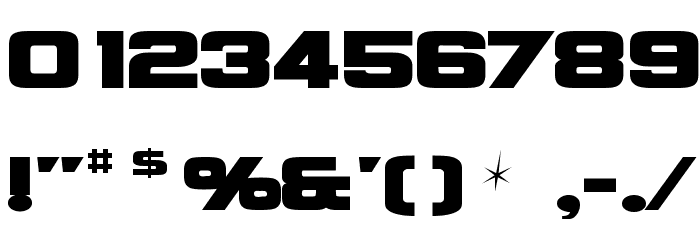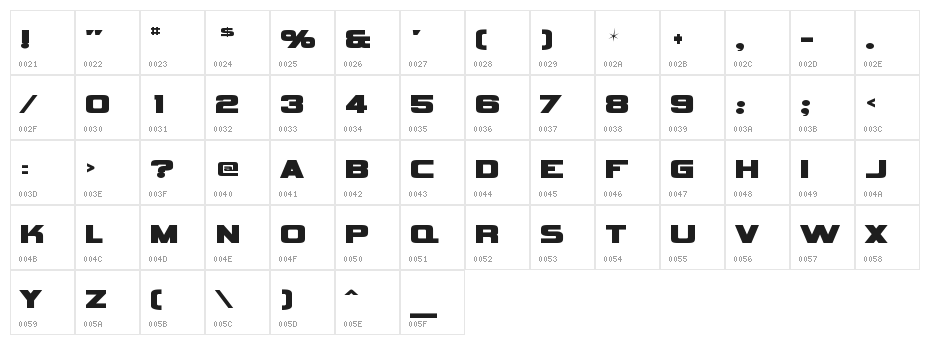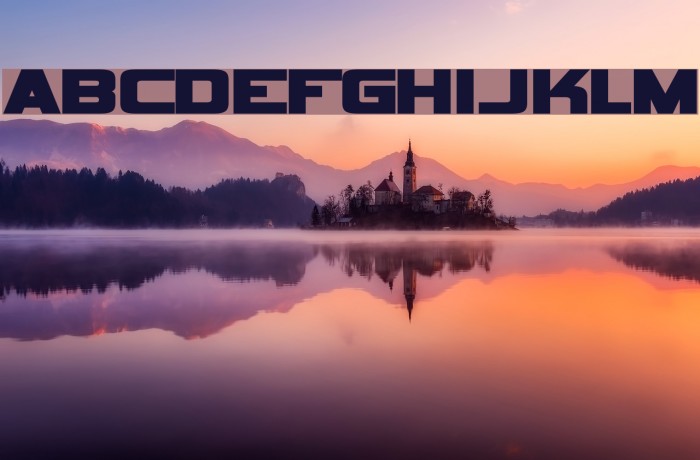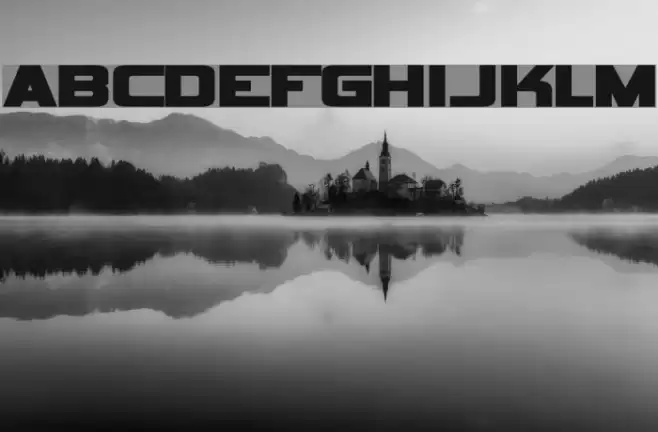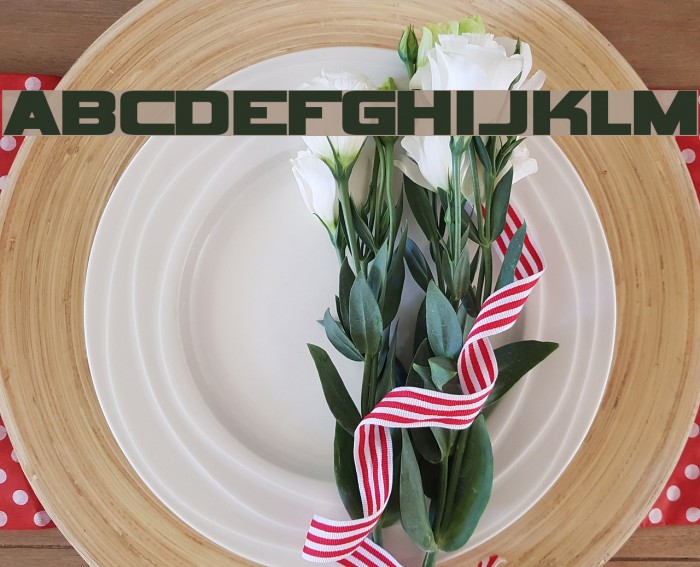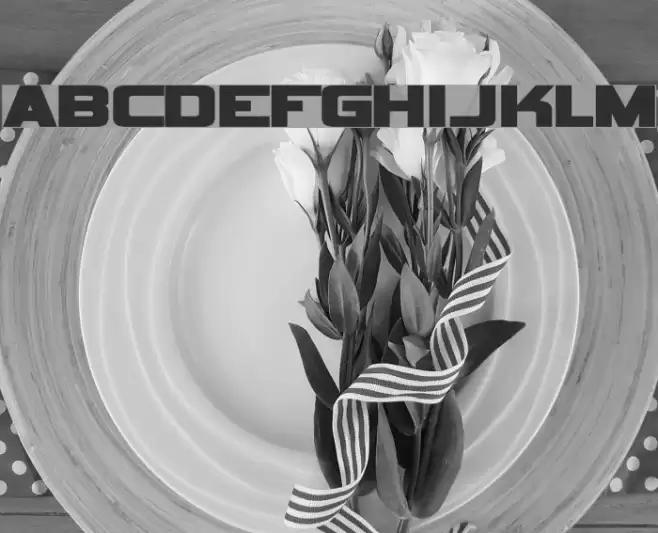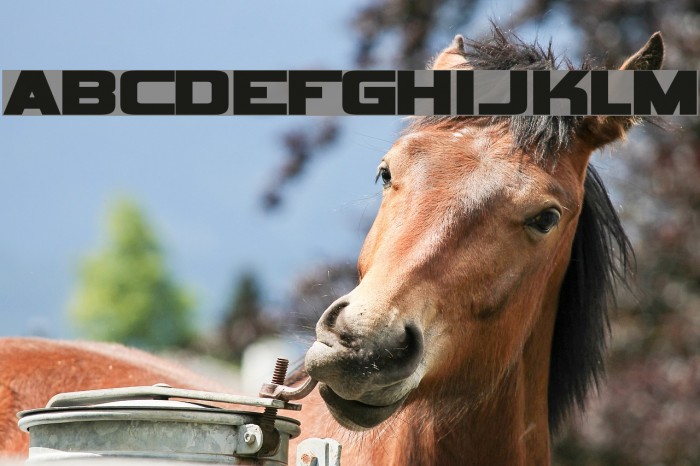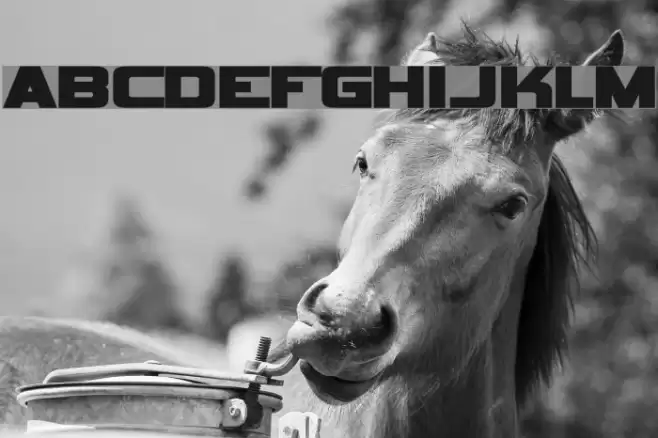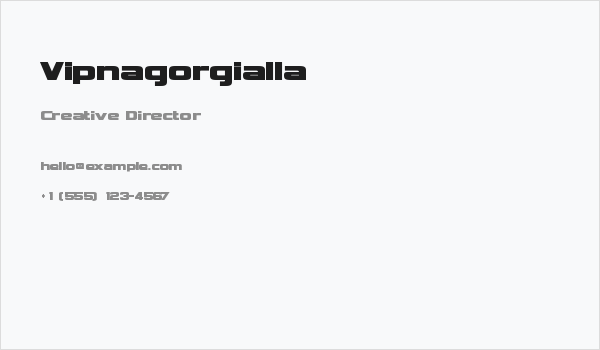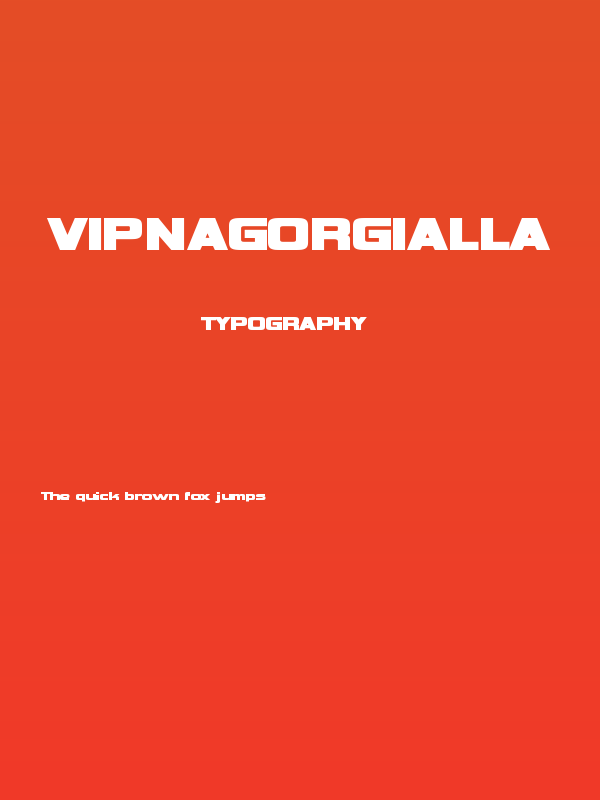
Vipnagorgialla Font
Vipnagorgialla Description
This font features a bold, geometric style with strong, angular lines and a modern aesthetic. The uppercase letters are particularly striking, with a blocky, robust appearance that commands attention. Lowercase letters maintain the same boldness, ensuring consistency across text. The numerals are equally bold, making them stand out clearly. Special characters are designed with the same geometric precision, adding to the font's cohesive look. This font is perfect for projects that require a strong visual impact, such as branding or advertising.
| Proposed Projects | Ideal for branding, advertising, headlines, and any project requiring a strong visual impact. |